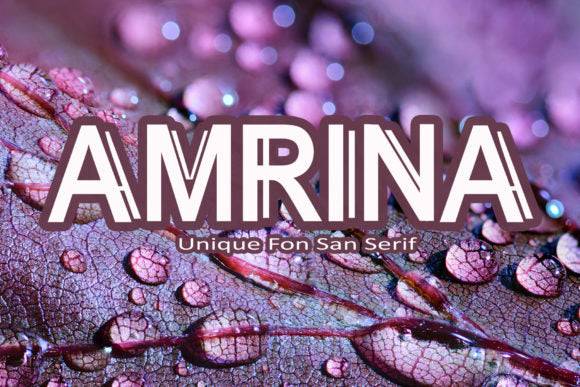
Amrina Font for Headlines, Posters and Branding Projects
Amrina is a modern display font designed to deliver elegance and strength across branding and promotional projects. With its sharp contours and balanced proportions, it excels in headlines, posters, packaging, and high-end visual identity systems. Amrina's versatility makes it an ideal choice for a wide range of applications, from luxury goods to contemporary digital media. Additionally, the arthana gisea font features unique stylistic alternatives that enhance its visual appeal, allowing designers to create distinctive typographic experiences. The combination of modern aesthetics and functional design ensures that Amrina stands out in any creative context.
This font entity offers high contrast and polished detail, making it perfect for editorial layouts, product campaigns, and digital banners where clarity and style must go hand in hand.
Amrina sets a professional tone for design work that requires attention, authority, and refined simplicity.
- Magazine covers and section headers
- Poster campaigns and flyers
- Luxury branding systems and packaging
- Event signage and trade show materials
- Website headers and social banners
- Modern styling with refined letterforms
- Perfect for upscale editorial and branding use
- Clear visibility across all media formats
- Ideal for bold visual storytelling
Q: What kind of font is Amrina?
A: Amrina is a sleek, modern display font built for headlines, posters, and brand identities that require sharp readability and style.
Q: Is this font suitable for large-format printing?
A: Yes, it is optimized for posters, banners, and any print materials requiring clear and impactful typography.
Q: Can I use it in online marketing graphics?
A: Yes, Amrina performs well in digital layouts including social media banners, website headers, and promotional visuals.
| Feature | Amrina | Linea Bold | Serafina Display |
| Font Style | Modern serif display | Clean sans serif | Elegant contrast serif |
| Best Uses | Posters, headlines, branding | Web UI, mobile apps | Luxury branding, packaging |
| Design Compatibility | Print and digital layouts | Screen-focused designs | Print collateral and branding |